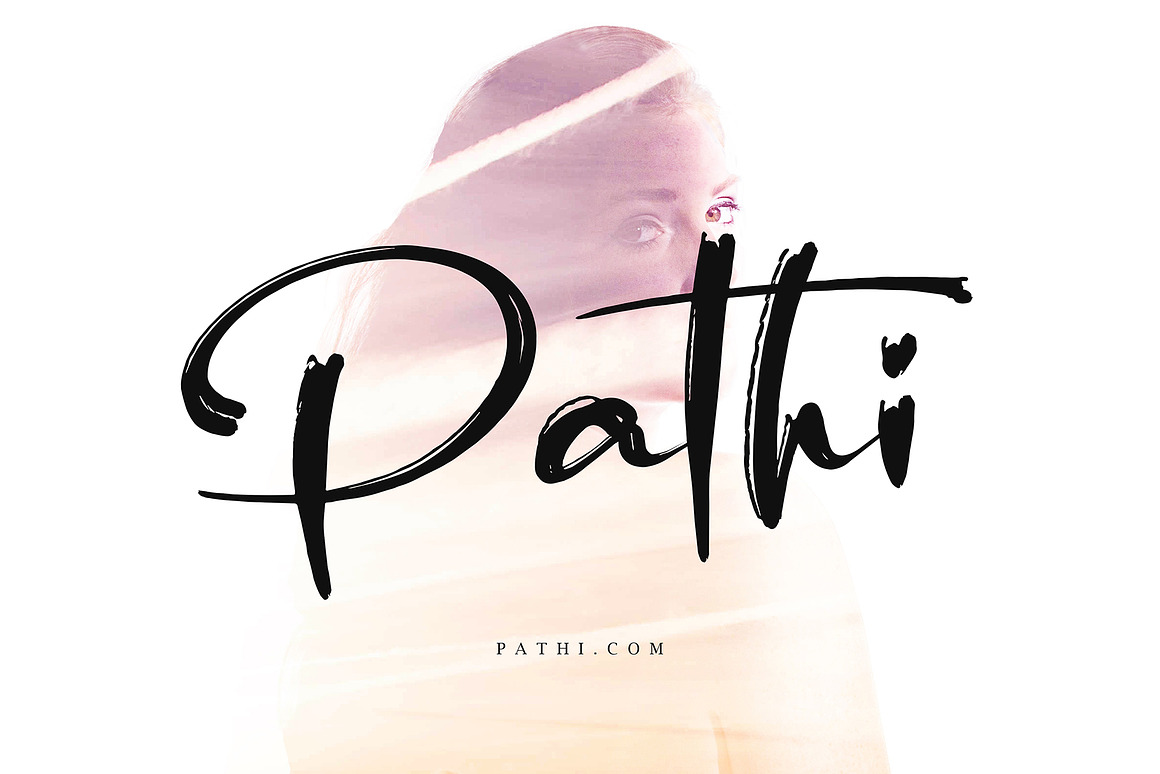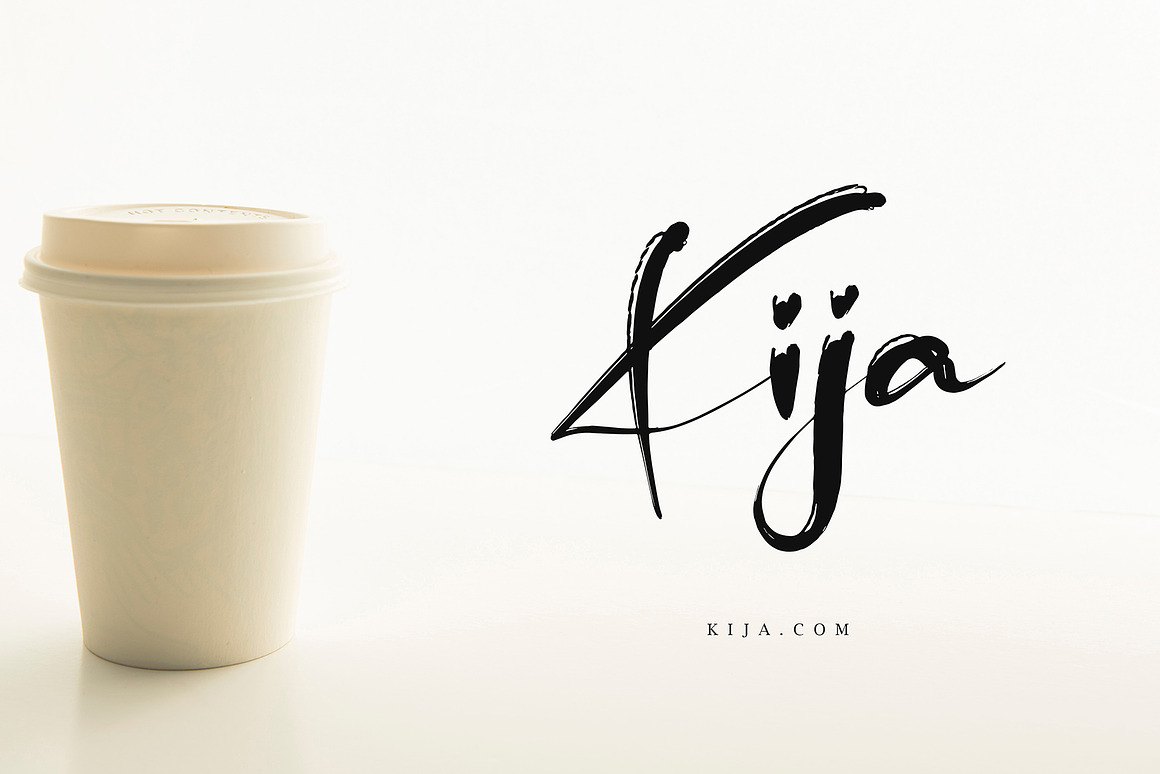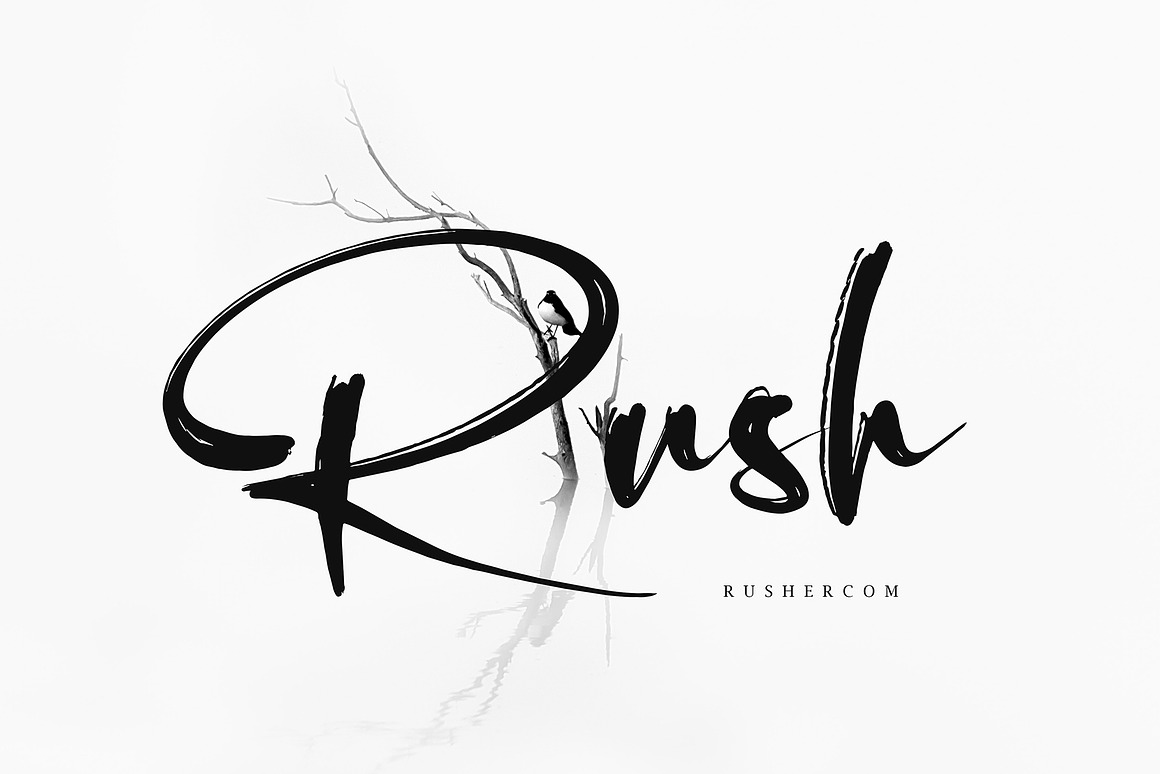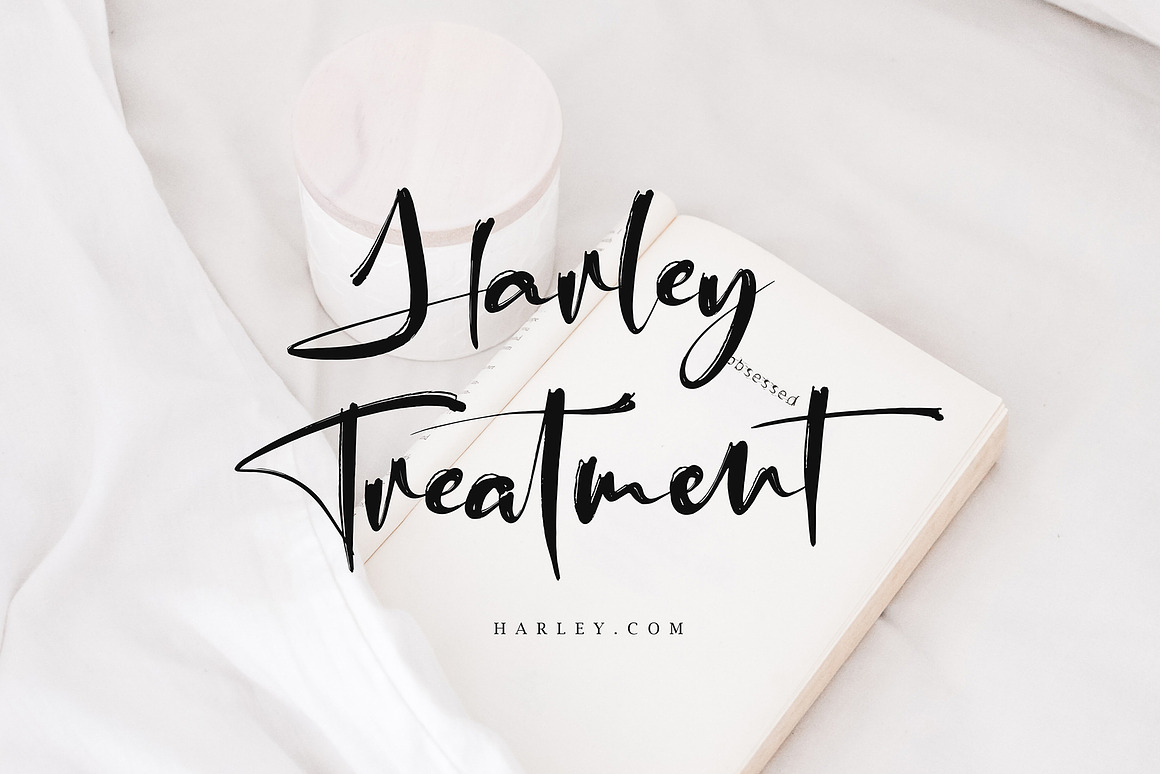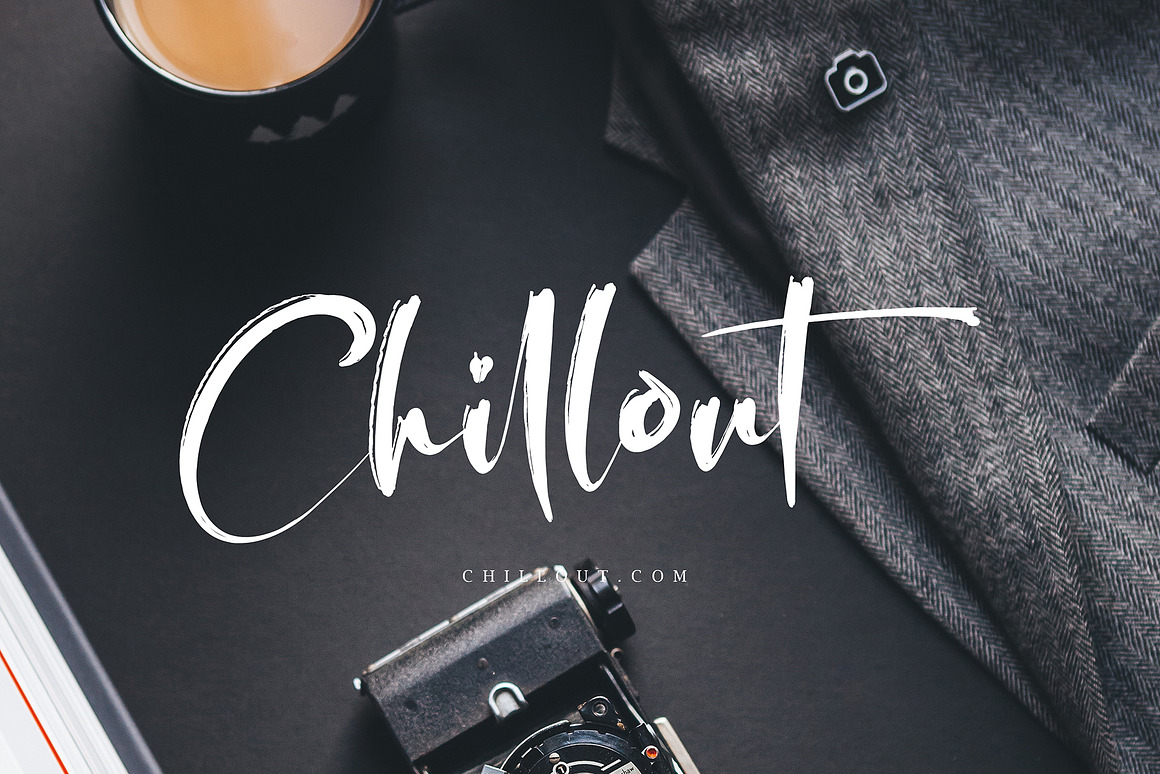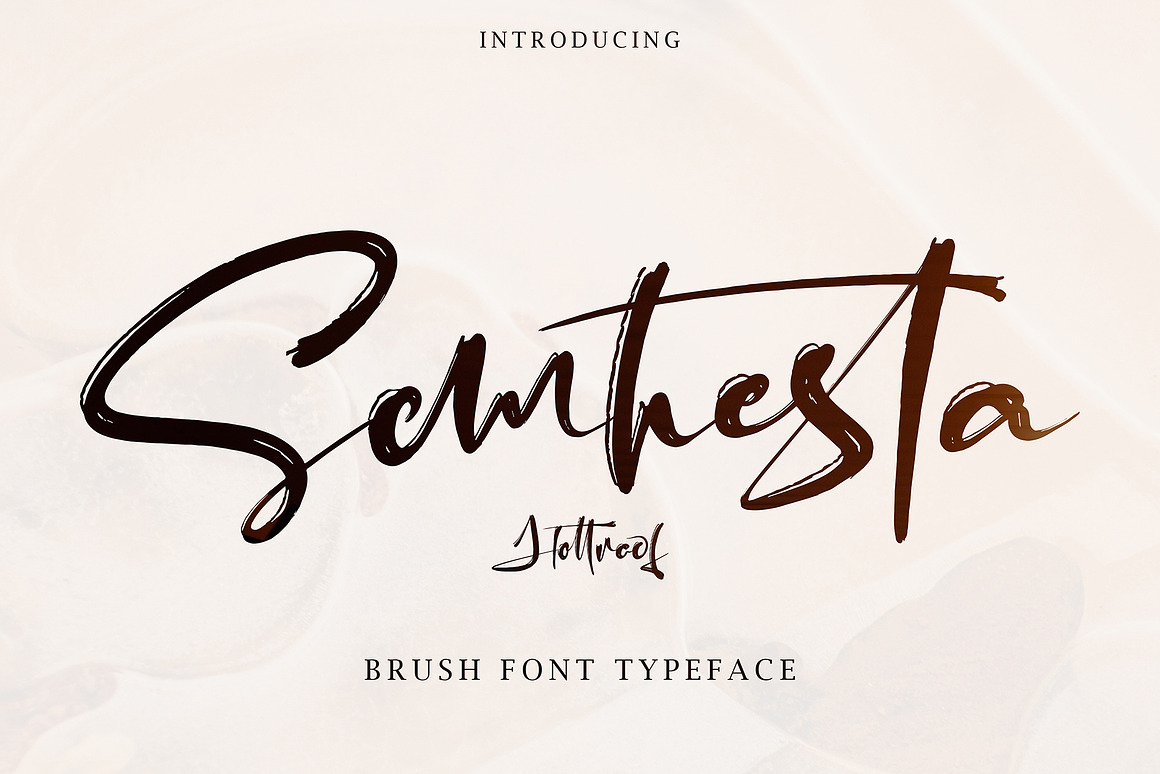
Semhesta Font
Semhesta Font is perfect for mystical branding projects, spiritual wellness centers, ethereal beauty products, celestial event materials, enchanting greeting cards, magical lifestyle brands, dreamy fashion labels, mystical social media graphics, spiritual retreat communications, and transcendent artistic expressions.
What makes Semhesta Font so exciting is its mystical elegance that captures the ethereal beauty of celestial harmony while maintaining contemporary sophistication and professional quality. This enchanting typeface embodies spiritual grace and transcendent beauty, creating typography that connects with audiences seeking deeper meaning and mystical experiences in their visual communication.
The Semhesta Font family includes light, regular, medium, and bold weights, complete with mystical design features, ethereal styling elements, and celestial characteristics that provide designers with comprehensive tools for creating transcendent and memorable typography that celebrates the beauty of spiritual expression and mystical aesthetics.
Embrace mystical sophistication with Semhesta Font Free Download, a beautifully crafted typeface that brings ethereal elegance and celestial beauty to contemporary design projects. This exceptional font embodies the perfect fusion of mystical charm and professional refinement, making it an ideal choice for brands that celebrate spiritual wellness and transcendent experiences.
The gracefully flowing letterforms of Semhesta Font showcase mystical elegance with ethereal character that creates instant connection with audiences seeking spiritual depth and celestial beauty. Each character displays careful attention to maintaining the transcendent spirit that defines mystical communication while ensuring contemporary readability and professional versatility. The font's ethereal construction and celestial spacing contribute to its mystical appearance and spiritual appeal.
Wellness brands and spiritually-focused organizations consistently choose Semhesta Font for projects requiring mystical authenticity and ethereal sophistication. The comprehensive character set includes uppercase and lowercase letters, numerals, extensive punctuation, international accents, and celestial decorative elements that provide complete support for spiritual branding applications and mystical design compositions.
The transcendent versatility of Semhesta Font ensures exceptional performance across both traditional print and modern digital platforms. Whether developing spiritual brand identities, creating mystical marketing materials, or designing ethereal wellness communications, this remarkable typeface delivers consistent enchantment that resonates with audiences seeking spiritual connection and transcendent beauty.